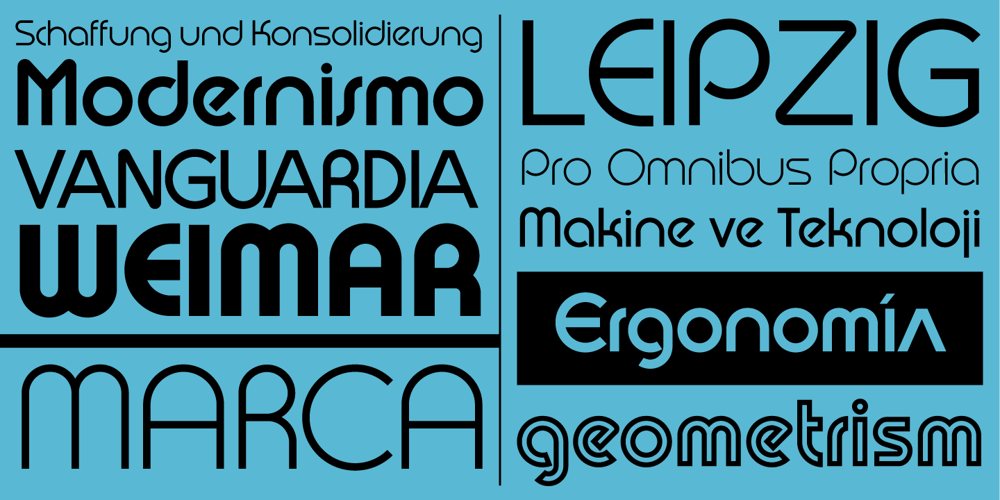
Arthaus Font Family was designed by John Moore and published by John Moore Type Foundry. Arthaus contains 6 styles and family package options. Arthaus is a typeface family inspired by Herbert Bayer letter study for an universal alphabet, this version is built on a rigorous geometrical basis as originally planned by this master of the Bauhaus in 1927. Arthaus comes in 4 weights and one outline version. Ideal for creating posters and brands is a treat for anyone who deals with graphic design.